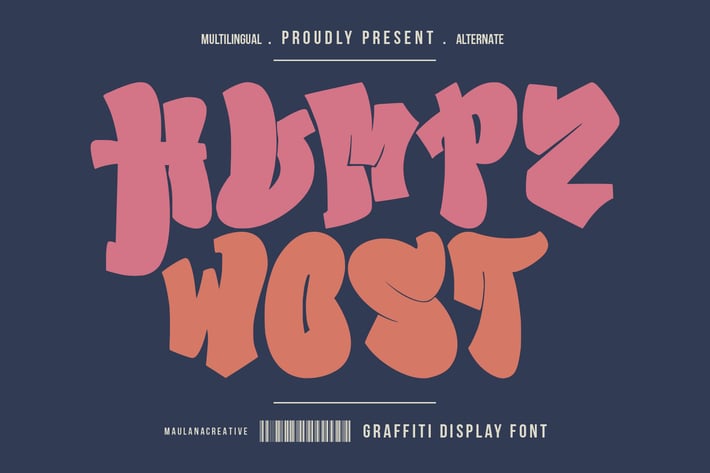
Humpz Wost Graffiti Display Font
Humpz Wost graffiti display font. Bold stroke, fun character with a bit of ligatures and alternates. To give you an extra creative work. Humpz Wost graffiti display font support multilingual more than 100+ language. This font is good for logo design, Social media, Movie Titles, Books Titles, a short text even a long text letter and good for your secondary text font with script or serif. Make a stunning work with Humpz Wost graffiti display font.